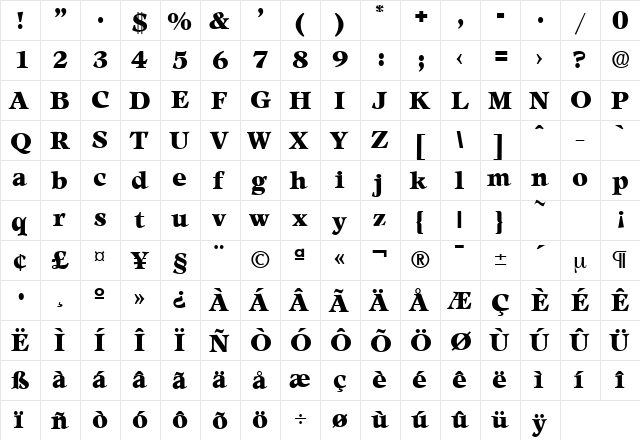
Leamington-Serial-Black Extra Heavy
Design Context for Leamington-Serial-Black Typeface
Leamington-Serial-Black offers clean, dependable letterforms without strong stylistic allegiance, making it a practical choice for designers who need flexibility.